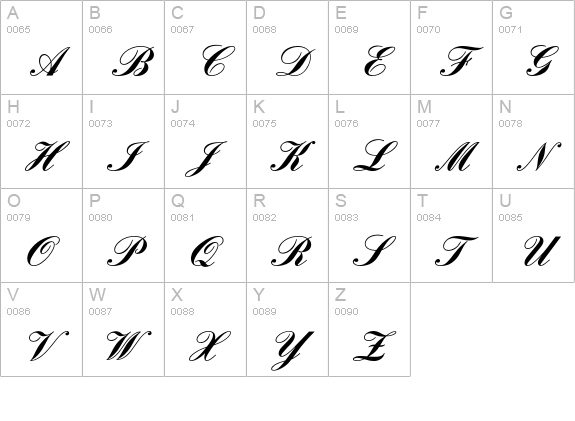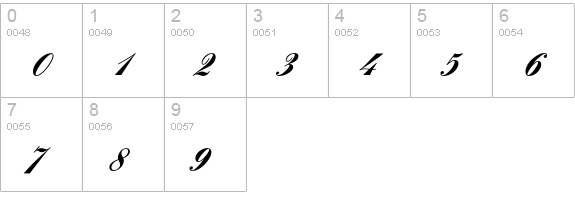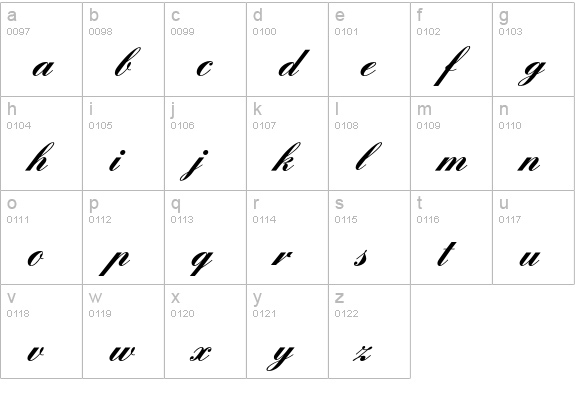
Englische Schreibschrift Bold is a strong, high-contrast variant in the Englische typeface family \xE2\x80\x94 well suited to headlines, attention-grabbing titles, and strong calls-to-action.
The Englische Schreibschrift Bold font exudes elegance and sophistication with its bold and striking letterforms. Perfect for adding a touch of timeless charm to your designs, this font is ideal for headings, logos, invitations, and more. Its classic yet modern aesthetic makes it a versatile choice for a wide range of projects. And the best part? You can download the Englische Schreibschrift Bold font for free at FontsMarket.com. Whether you're a designer looking to enhance your creations or a hobbyist wanting to add a touch of flair to your personal projects, this font is a fantastic addition to your toolkit. Don't miss out on the opportunity to elevate your designs with this stunning typeface, available for free download now.